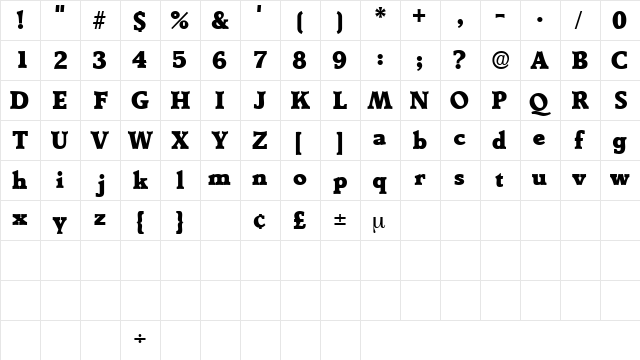
TractoDisplaySSK Regular
Design Context for TractoDisplaySSK Typeface
TractoDisplaySSK brings ornamental detail and strong personality to headlines and identities, where visual impact matters more than quiet functionality.
Font Pairing: Pair with a clean neutral sans-serif for body copy to let TractoDisplaySSK's character lead without overwhelming the composition.
Pro Tip: Treat TractoDisplaySSK as the centrepiece of your typographic hierarchy. One strong heading set in a decorative face can carry an entire layout.